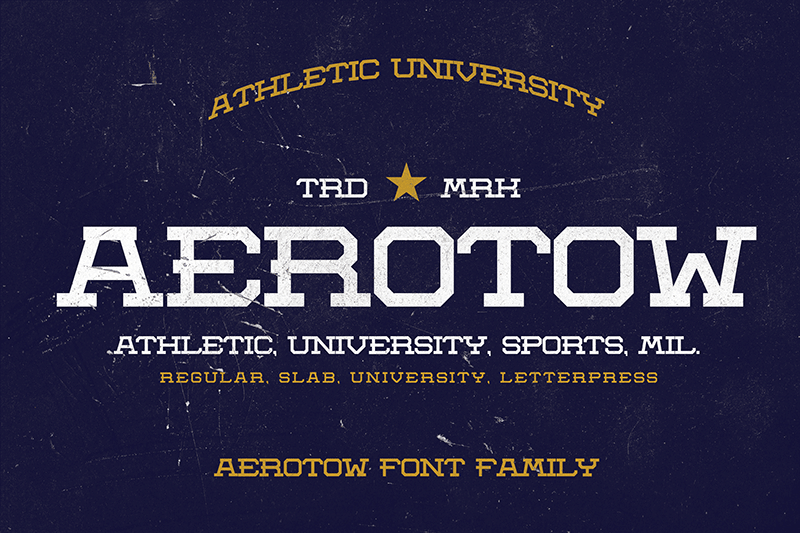
FULL VERSION AND LICENSE AVAILABLE HERE: https://leosupply.co/shop/product/aerotow-font Aerotow Font is a handcrafted vintage, letterpress and slab serif font. Inspired by university sports, retro posters, and magazines, postcards, and ads from the 70's to the '90s. The font comes in 8 styles. From Regular to Italic, Letterpress variation, and many others. The font stays in memory once you see it and it is ideal for display text, print, and also for user interfaces, mobile devices, web design, and posters, with a set of optimal characters for your design in any layout. It looks especially great on a large scale, although it still carries it at smaller point size. |